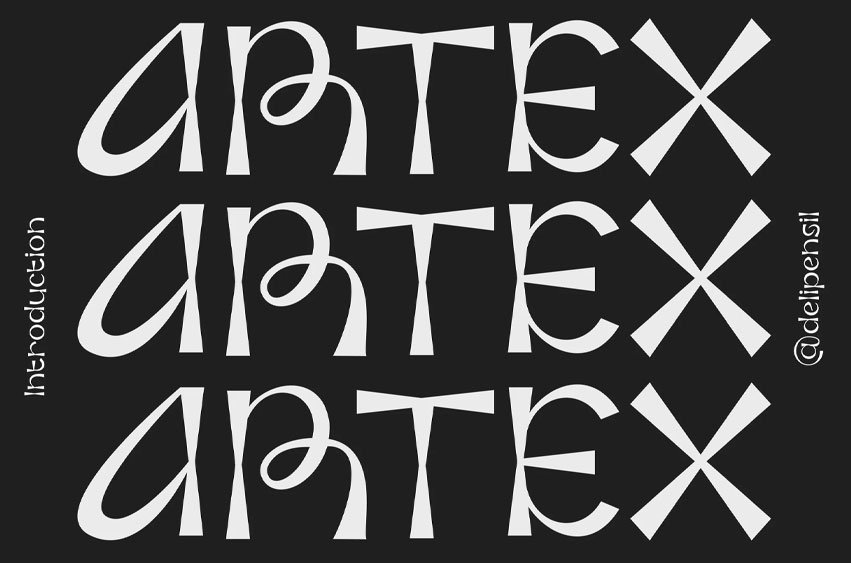
Artex Font is a futuristic sans serif display font designed to stand out. With its sleek cuts, sharp angles, and modern geometric forms, Artex brings a perfect balance between innovation and readability.
Ideal for branding, editorial layouts, tech-inspired projects, logos, posters, packaging, and more, Artex makes a bold statement while remaining clean and versatile.
Perfect for:
- Branding & logo design
- Sci-fi and tech-themed posters
- Editorial headlines
- Digital products & web UI
- Fashion and music artwork